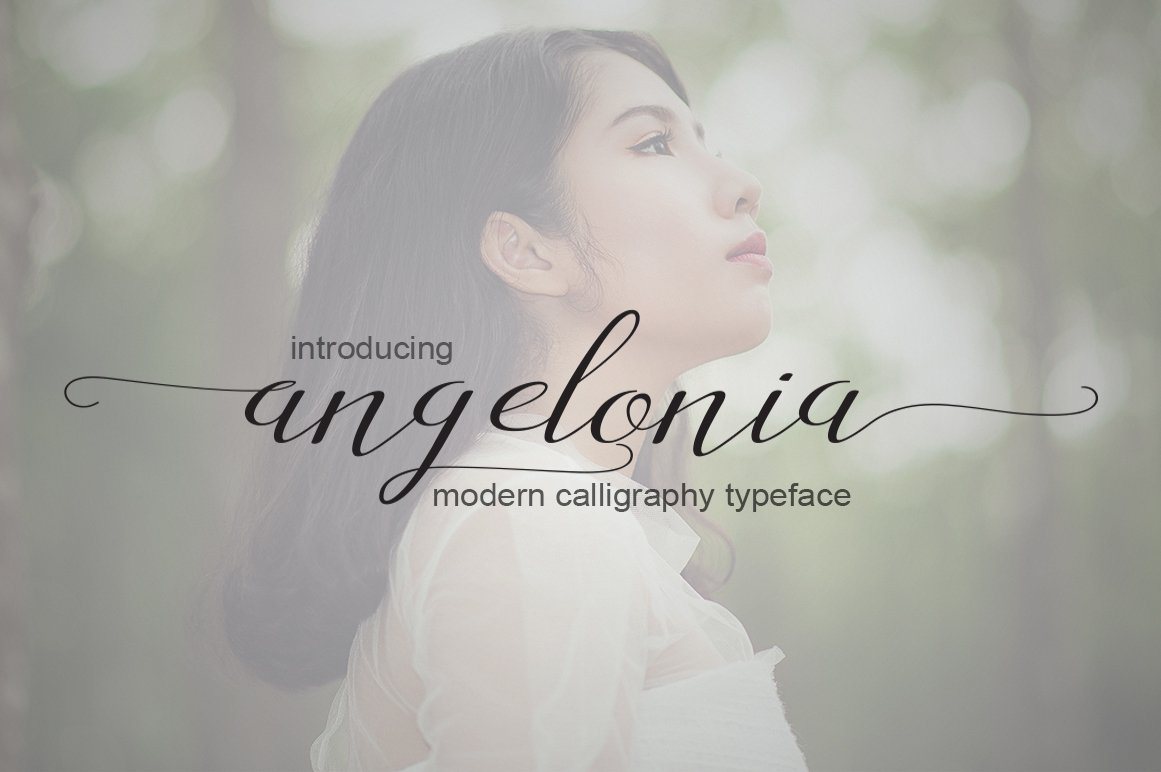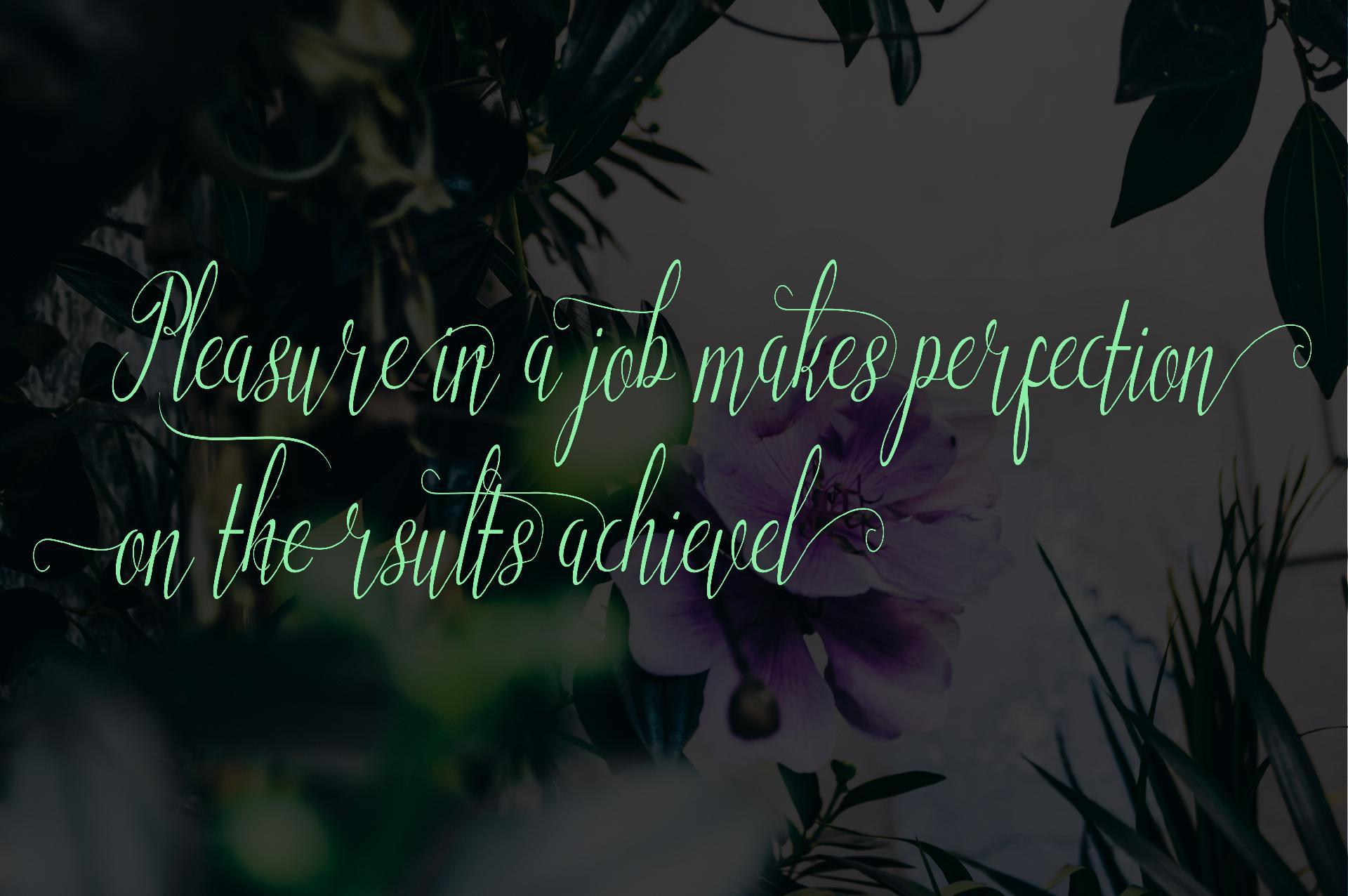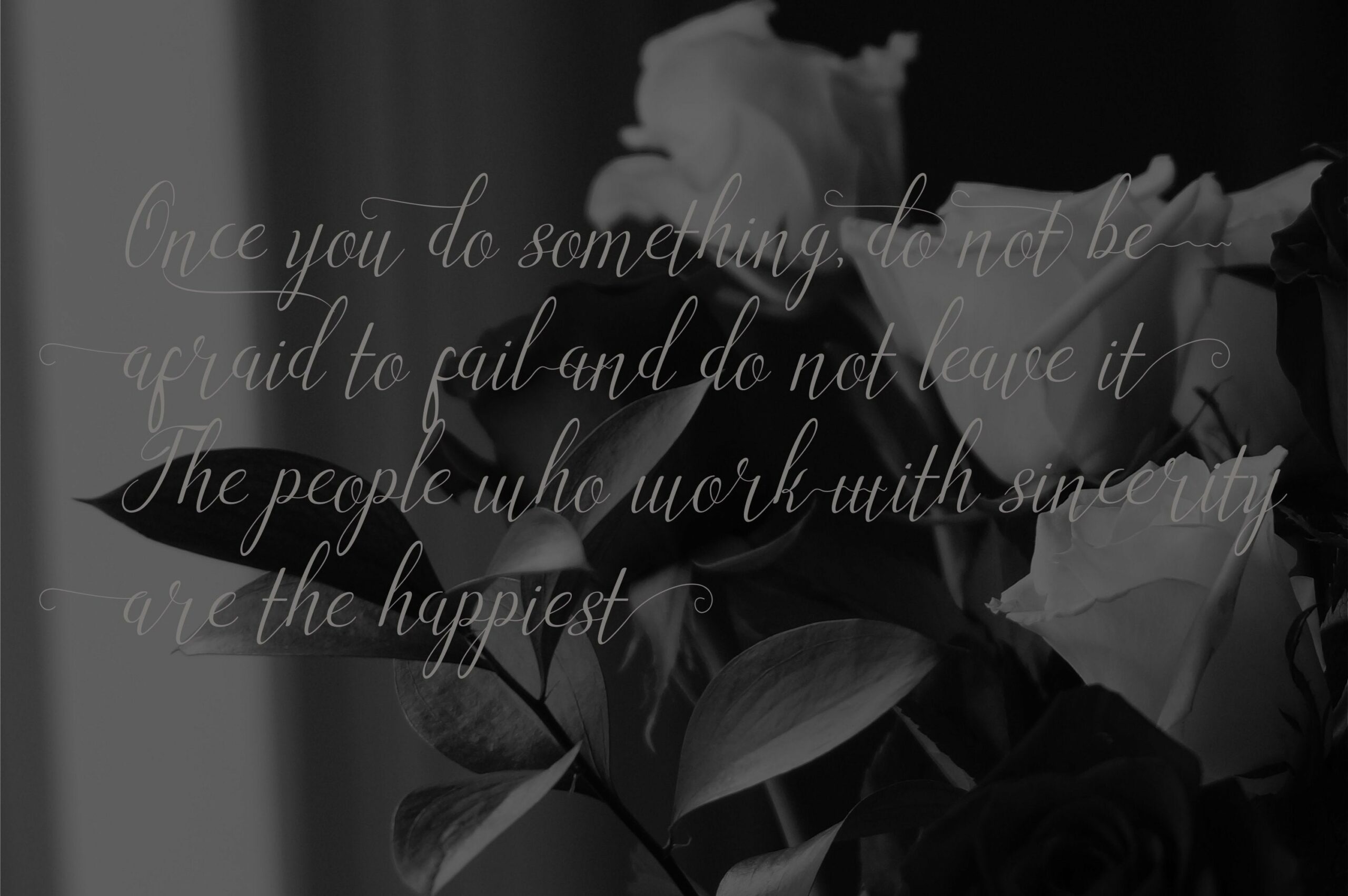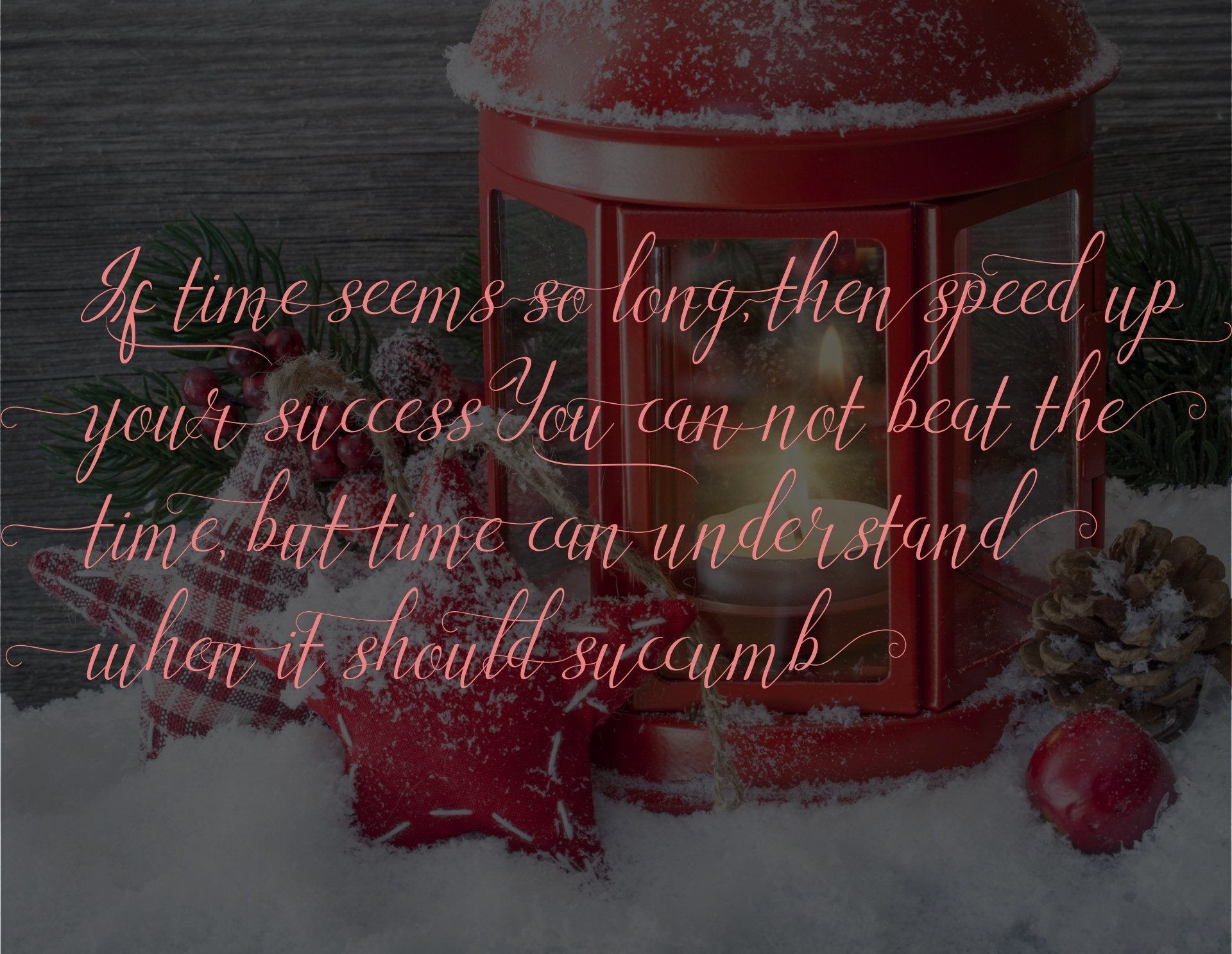
About Angelonia
NTRODUCING Angelonia Scrip Modern Calligraphy This font is designed with handwriting, and has a modern and unique calligraphy form, its writing style is very natural. Angelonia script has a very unique style of calligraphy, very suitable for use in modern design works.can be used for business cards and wedding. The Features of this fonts is: Standart ligatures Stylistic Alternates PUA Unicode (Private Use Areas) File font Include: Angelonia Scrip OTF Angelonia Scrip TTF Can be used for various purposes.such as headings, logos, wedding invitation, t-shirt, letterhead, lable, news, posters, badges etc. To enable the OpenType Stylistic alternates, you need a program that supports OpenType features such as Adobe Illustrator CS, Adobe Indesign & CorelDraw X6-X7.a font that made the hand by having the character up and down like a dancer. Delvia Script has a very unique style of calligraphy, it is very suitable for use in the work of modern design. The Features of this fonts is: Standart ligatures Stylistic Alternates PUA Unicode (Private Use Areas) File font Include: Angelonia Scrip OTF Angelonia Scrip TTF Can be used for various purposes.such as headings, logos, wedding invitation, t-shirt, letterhead, lable, news, posters, badges etc. To enable the OpenType Stylistic alternates, you need a program that supports OpenType features such as Adobe Illustrator CS, Adobe Indesign & CorelDraw X6-X7.a font that made the hand by having the character up and down like a dancer. Delvia Script has a very unique style of calligraphy, it is very suitable for use in the work of modern design. Can be used for various purposes.such as headings, logos, wedding invitation, t-shirt, letterhead, lable, news, posters, badges etc. To enable the OpenType Stylistic alternates, you need a program that supports OpenType features such as Adobe Illustrator CS, Adobe Indesign & CorelDraw X6-X7.a font that made the hand by having the character up and down like a dancer. Delvia Script has a very unique style of calligraphy, it is very suitable for use in the work of modern design.